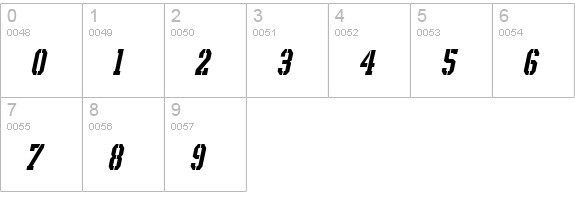
Intramural Stencil Italic JL is a distinctive, italic variant in the Intramural typeface family \xE2\x80\x94 well suited to design and typography projects.
Intramural Stencil Italic JL font is a captivating and stylish typeface that embodies the perfect blend of modernity and classic elegance. With its bold and distinctive stencil design, this font effortlessly commands attention and adds a touch of sophistication to any project. The Intramural Stencil Italic JL font features a unique italicized style that adds a sense of movement and dynamism to your text. Its sleek and slender letterforms are meticulously crafted, ensuring legibility while still maintaining an air of artistic flair. This font is perfect for a wide range of applications, from eye-catching headlines and titles to stylish logos and branding materials. Whether you're designing a poster for a music festival, creating a magazine layout, or crafting a striking website, Intramural Stencil Italic JL font will undoubtedly make a bold statement. One of the most appealing aspects of this font is that it is available for free. That's right, you can effortlessly download the Intramural Stencil Italic JL font at FontsMarket.com. This means that you can enhance your creative projects without any additional cost, making it an ideal choice for both personal and commercial use. So, why wait? Take advantage of the captivating and stylish Intramural Stencil Italic JL font today. Download it for free at FontsMarket.com and unleash your creativity with its unique and captivating design.